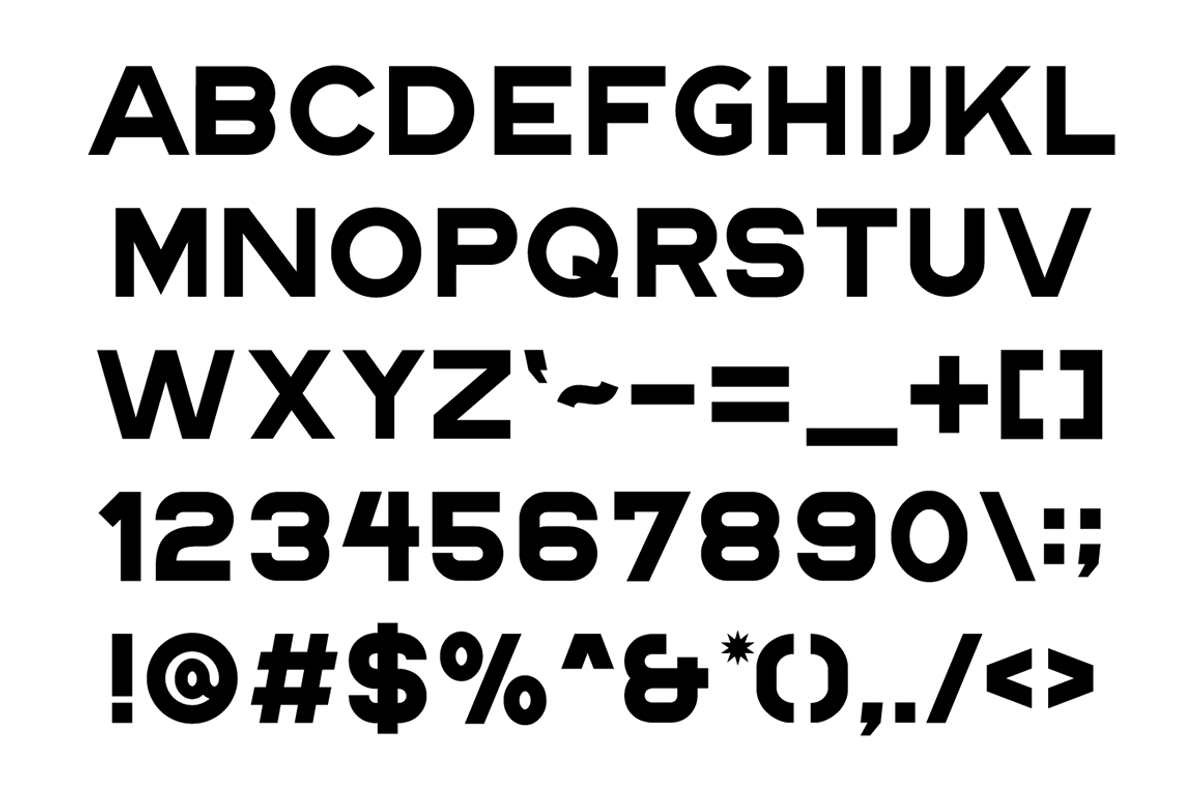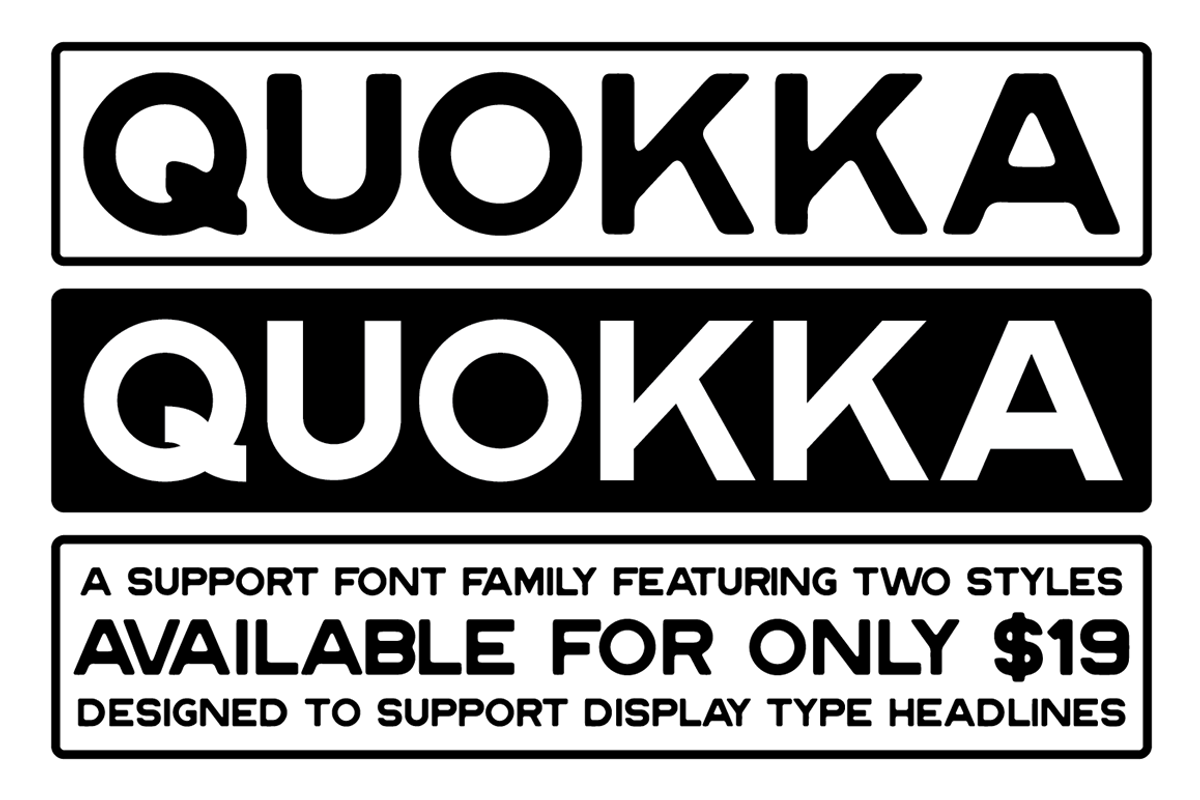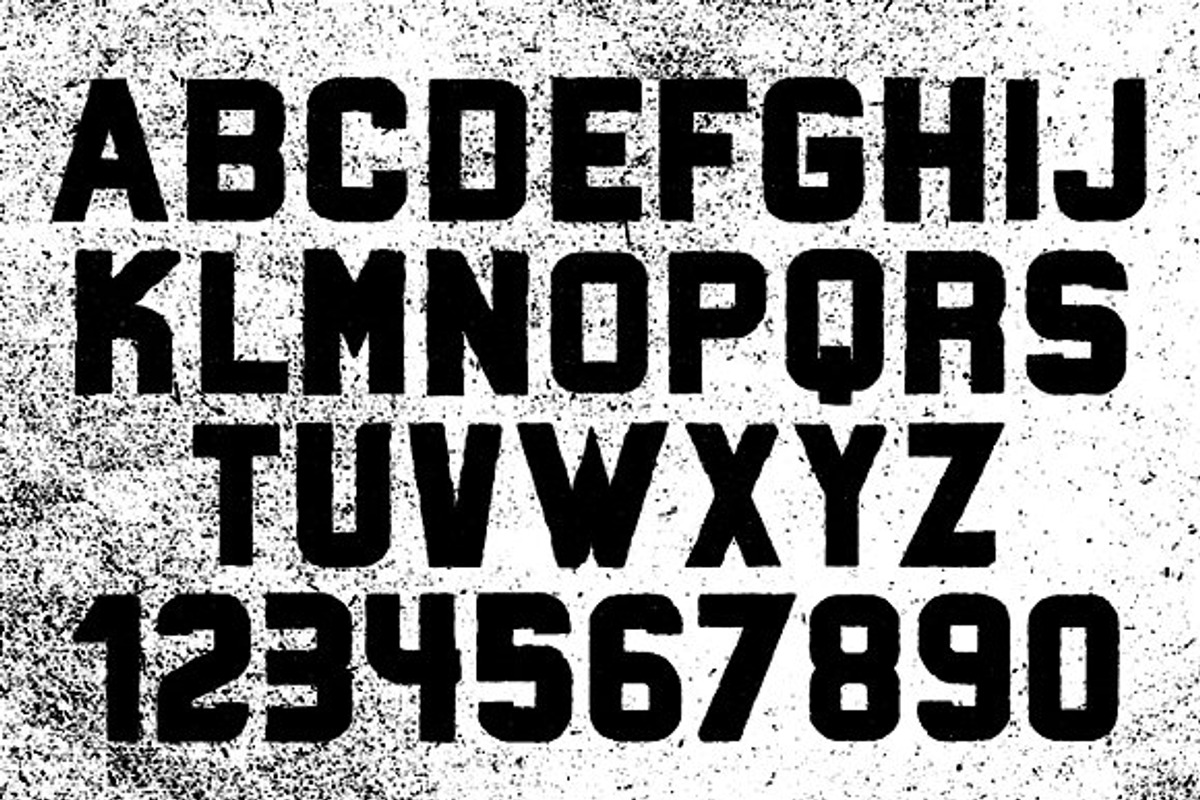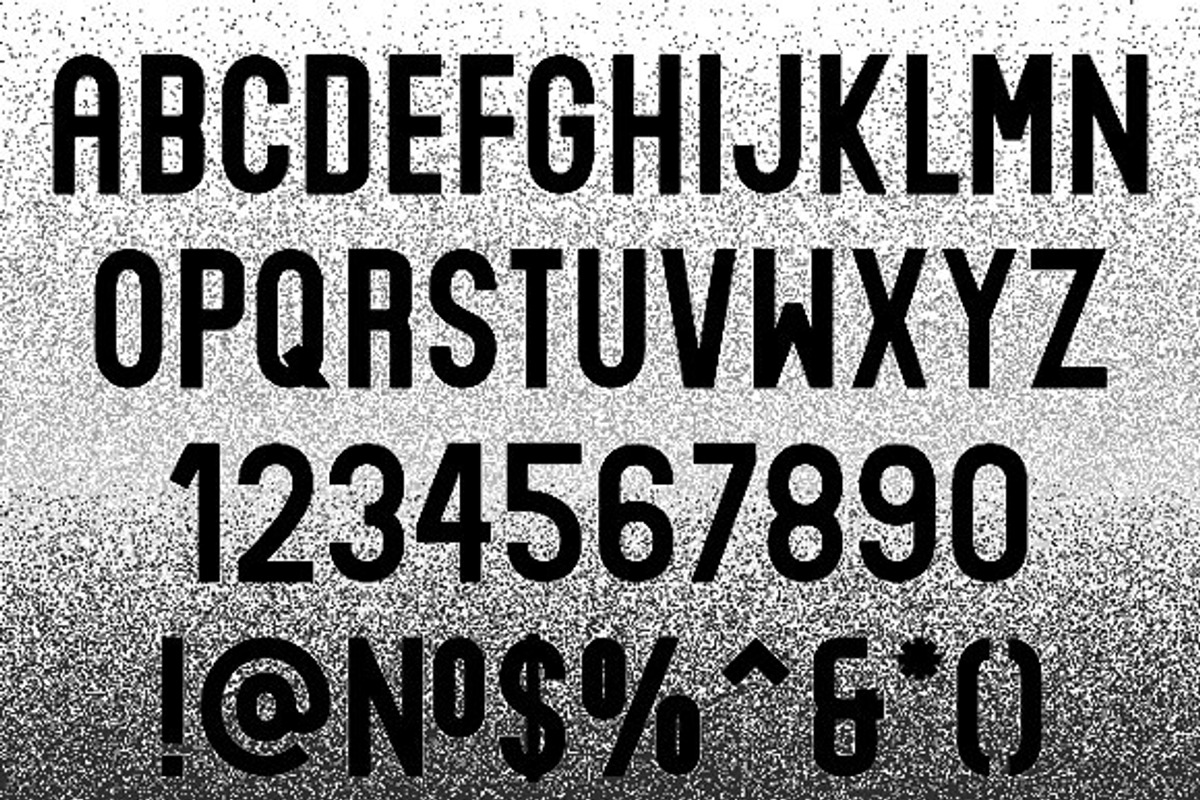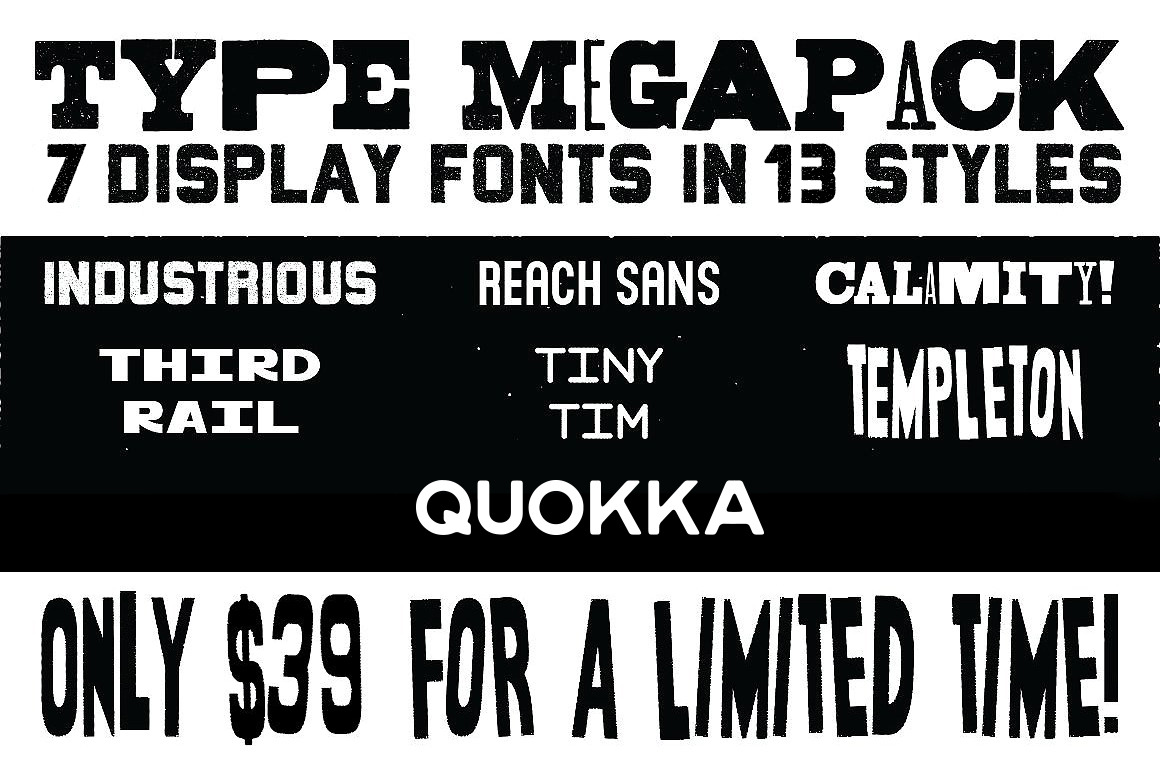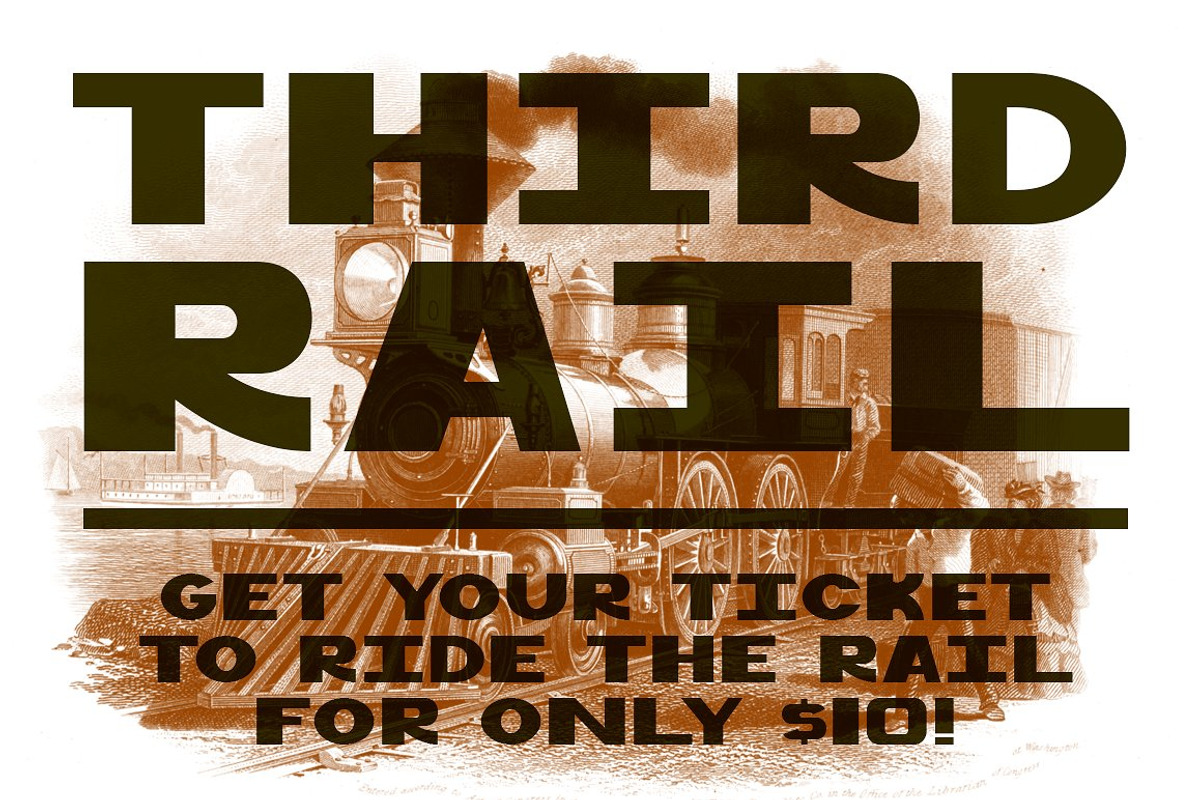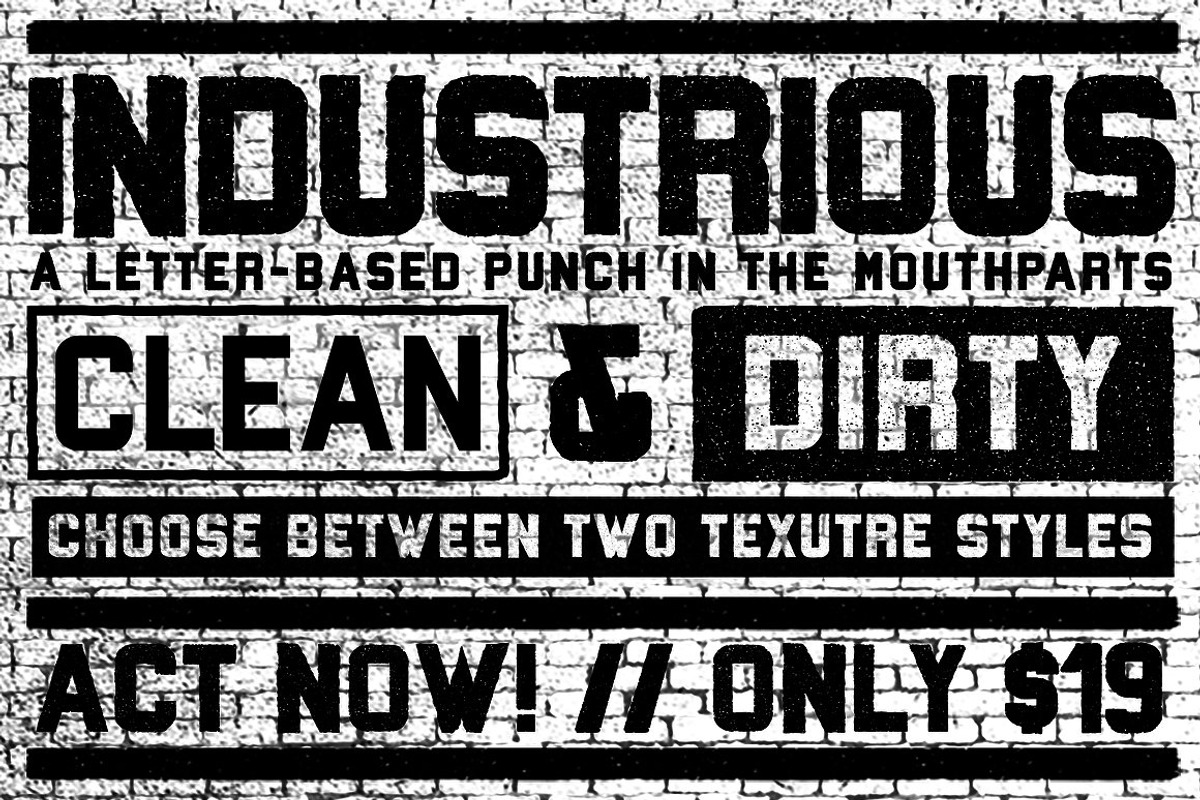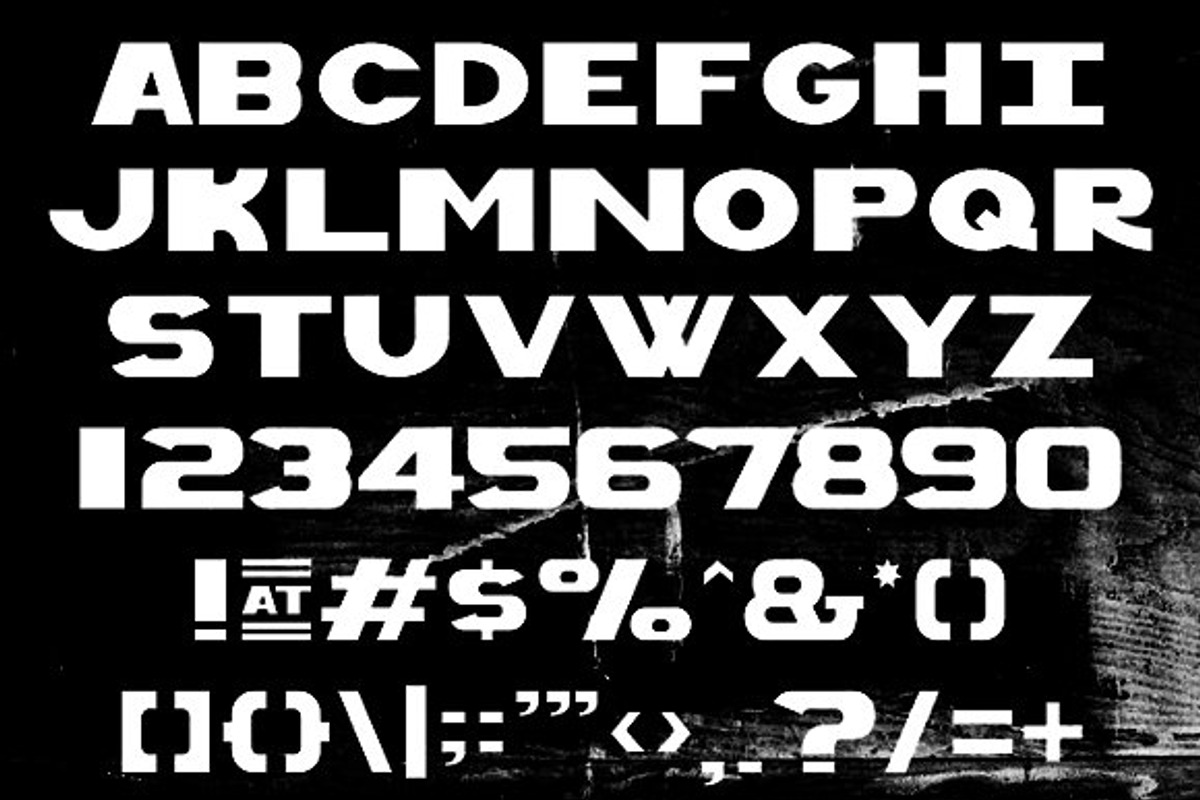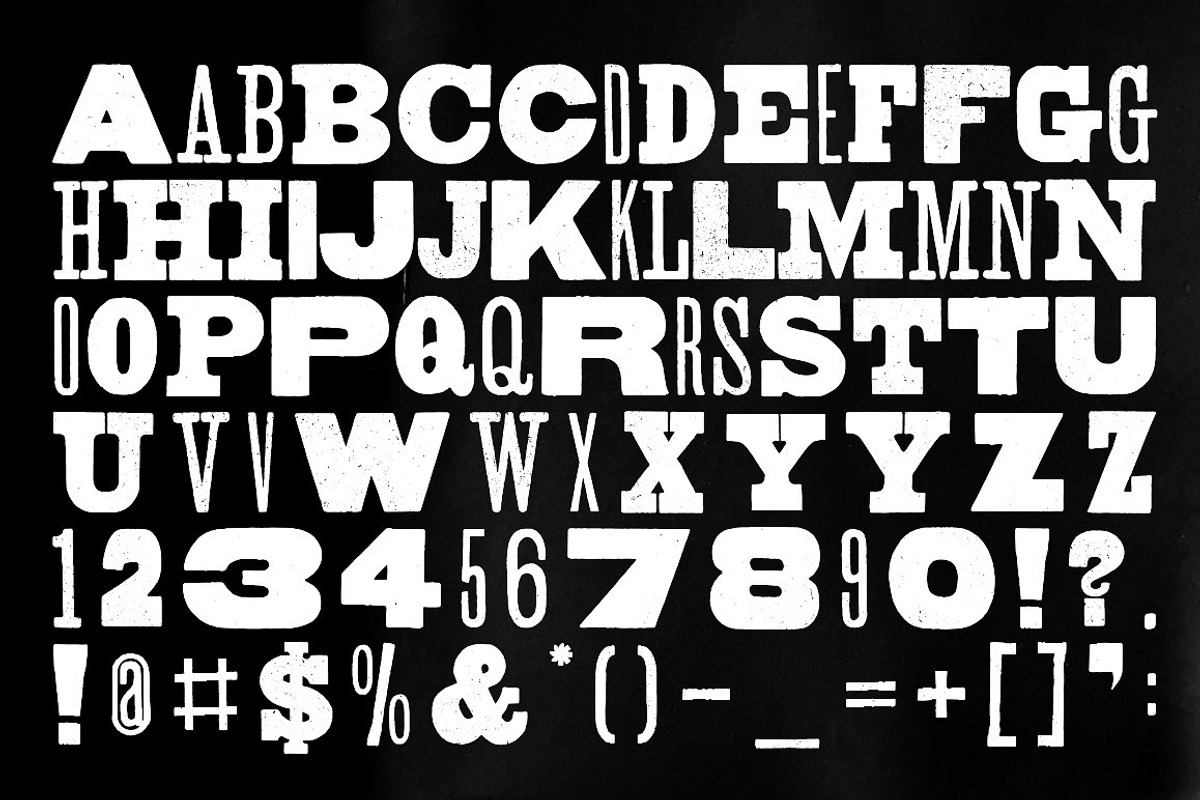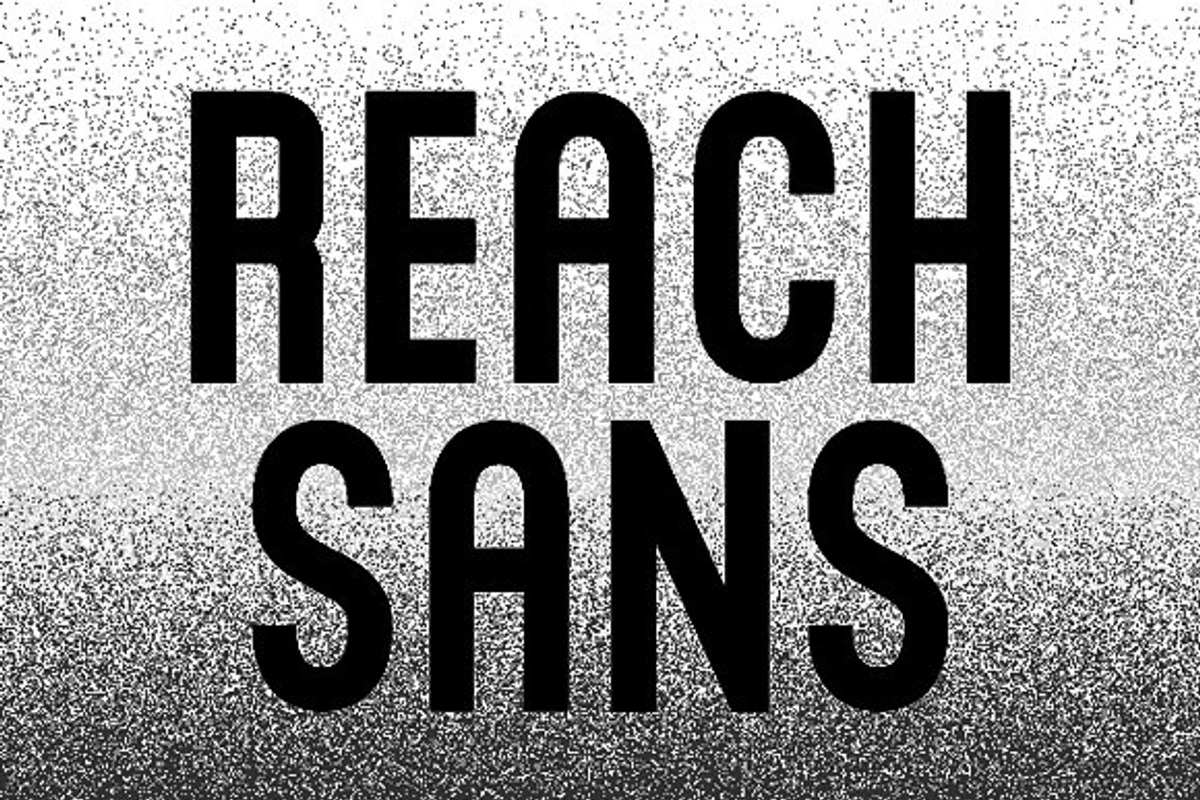
FONT MEGAPACK
Everything you've ever wanted.
Calamity
- Calamity / With build in texture & upper and lowercase variations
- Calamity Clean / With yet another 2 variations of each letter without any texture
Industrious
- Industrious / Sharp and Strong
- Industrious Rough / Perfect Amount of Wrong
Templeton
- Templeton / Tall and Sneaky
- Templeton Clean / Ratty and Rotted
Tiny Tim
- Tiny Tim / God bless us, every one
- Tiny Tim Rough / Spoiler: He dies
Reach Sans
- Reach Sans / Poised and Proper
- Reach Sans Inline / Dressed to the nines
Third Rail
- Third Rail / Your ticket to the gold line
Quokka
- Quokka / Perfectly rounded edges
- Quokka Sharp / Get some band-aids. With type this sharp, someone's bound to get cut.